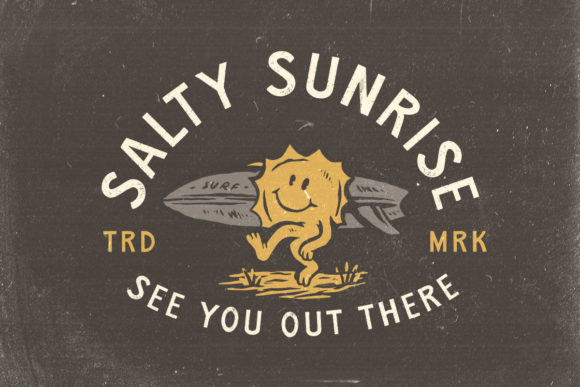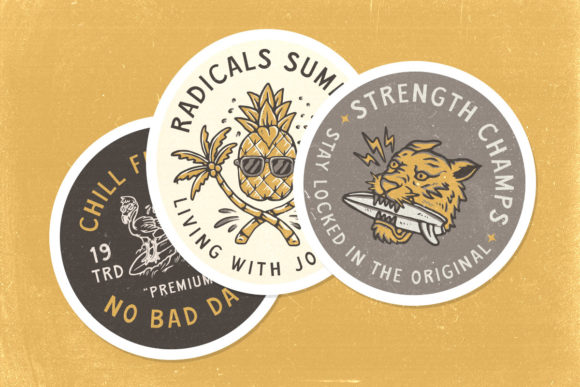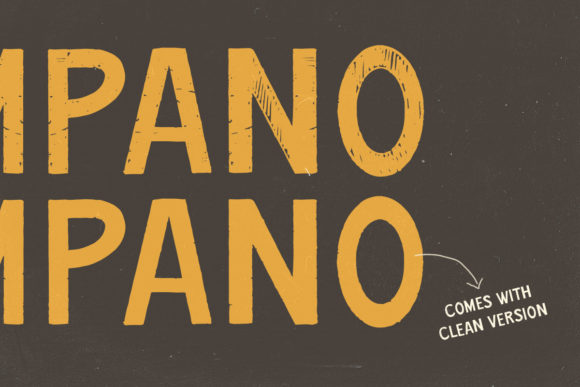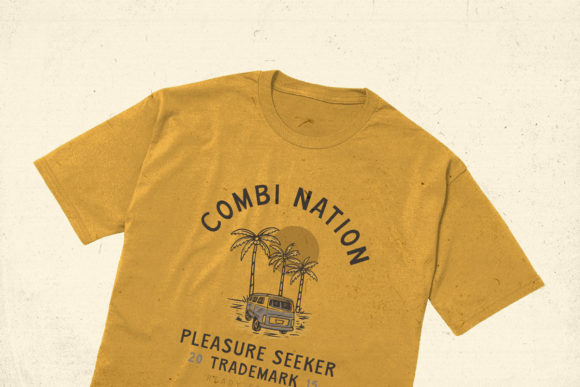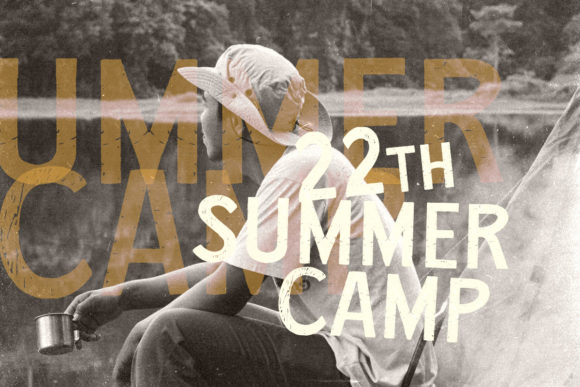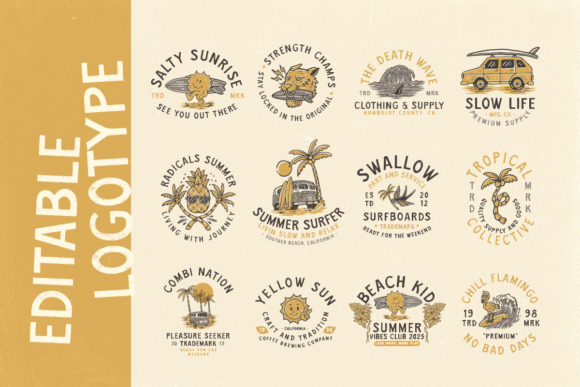
Introduction to Pompano Font
Pompano is a cool, rough textured and brushed display font.
It will look stunning on any food menu, poster flyer or print Use this font for your designs and explore its endless possibilities.
Key Features of Pompano Font